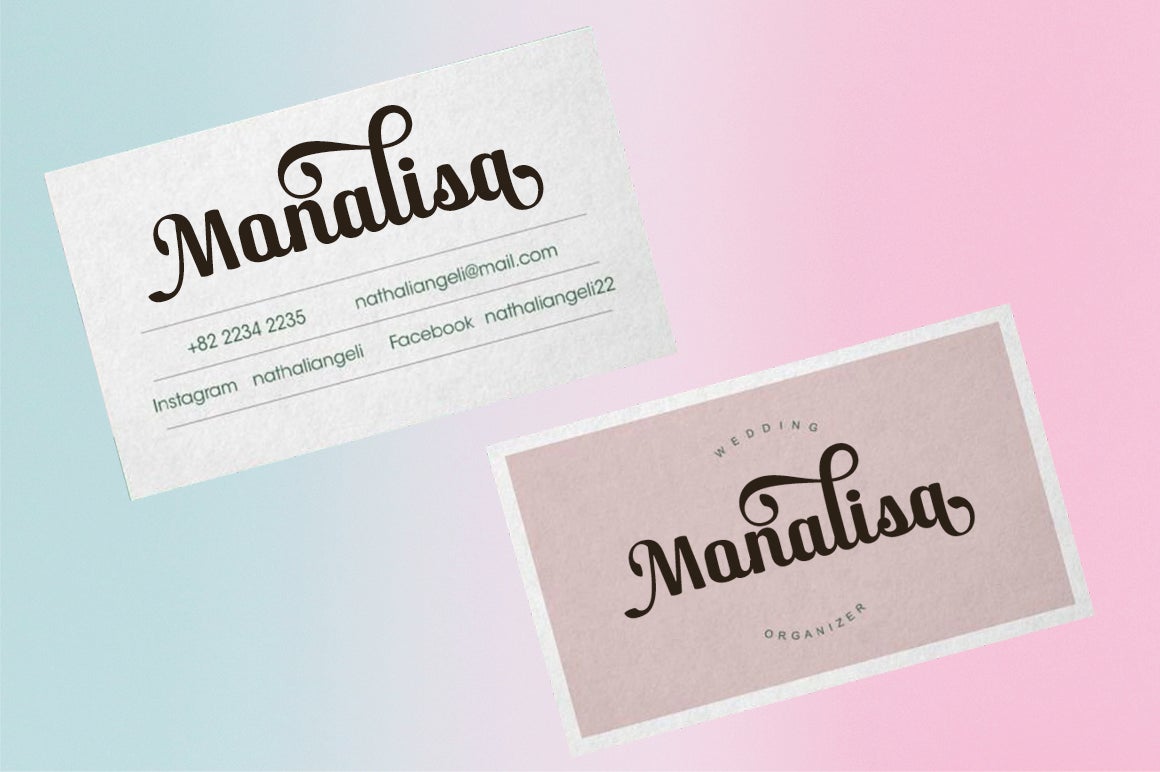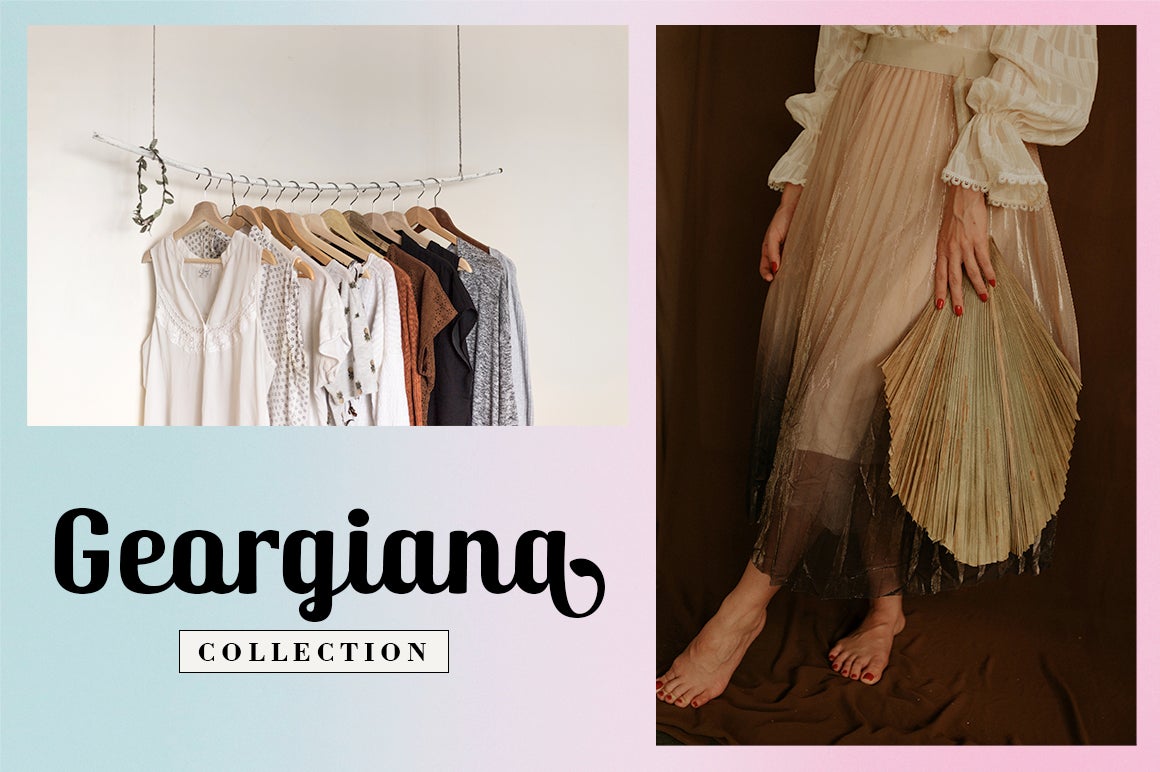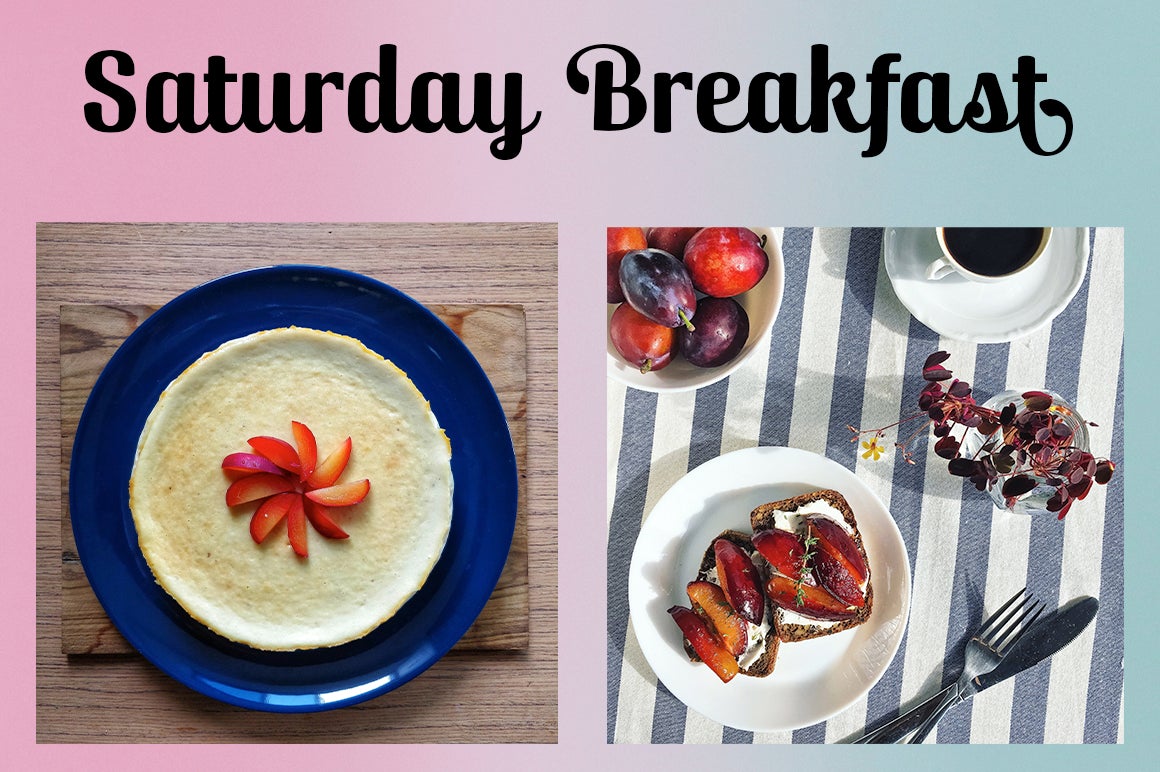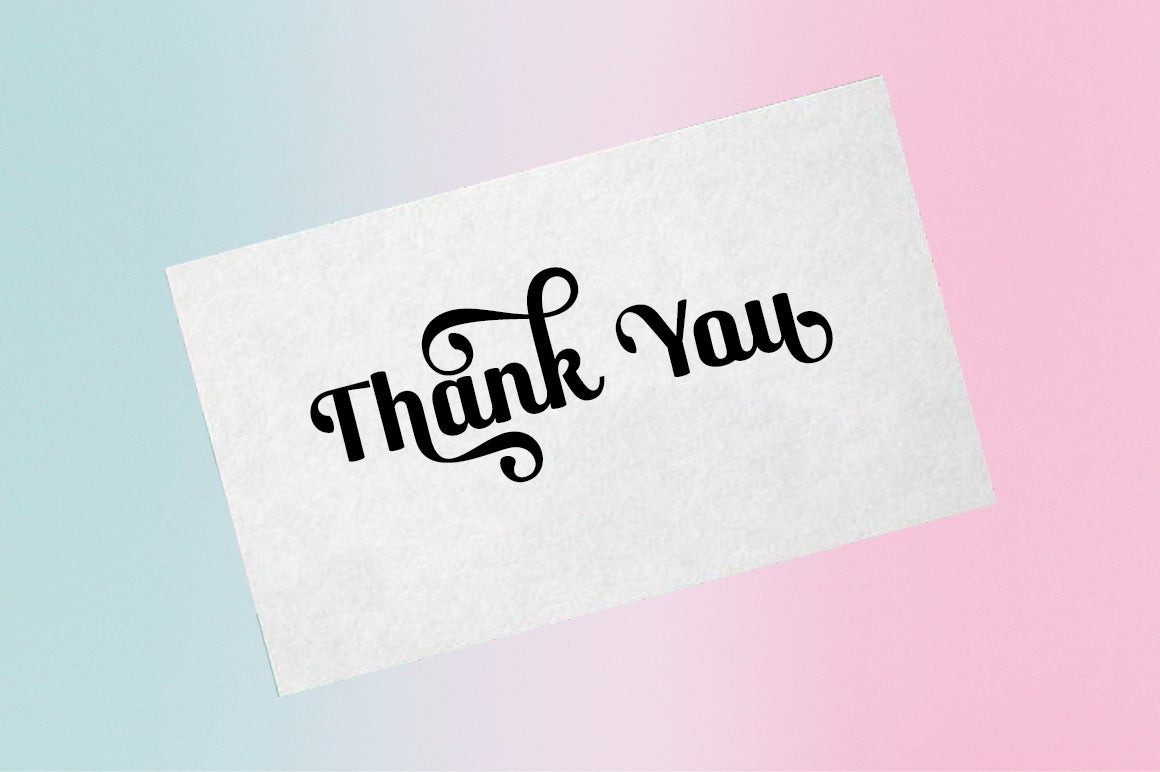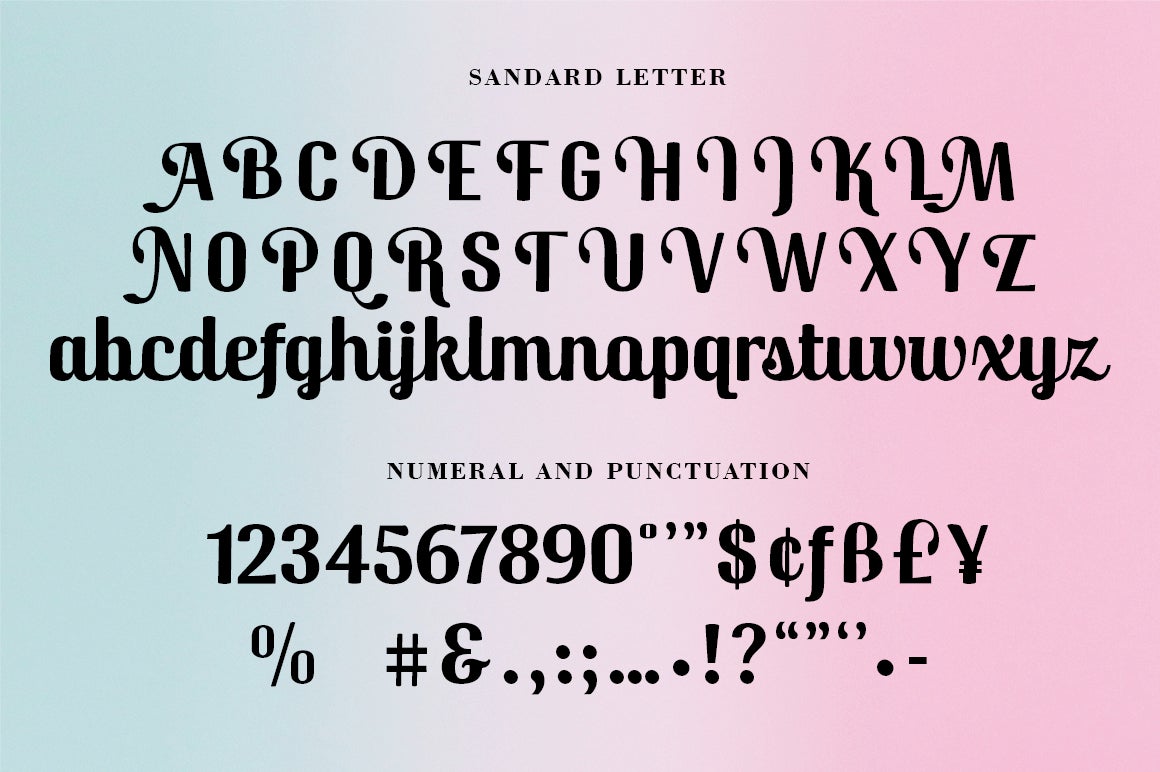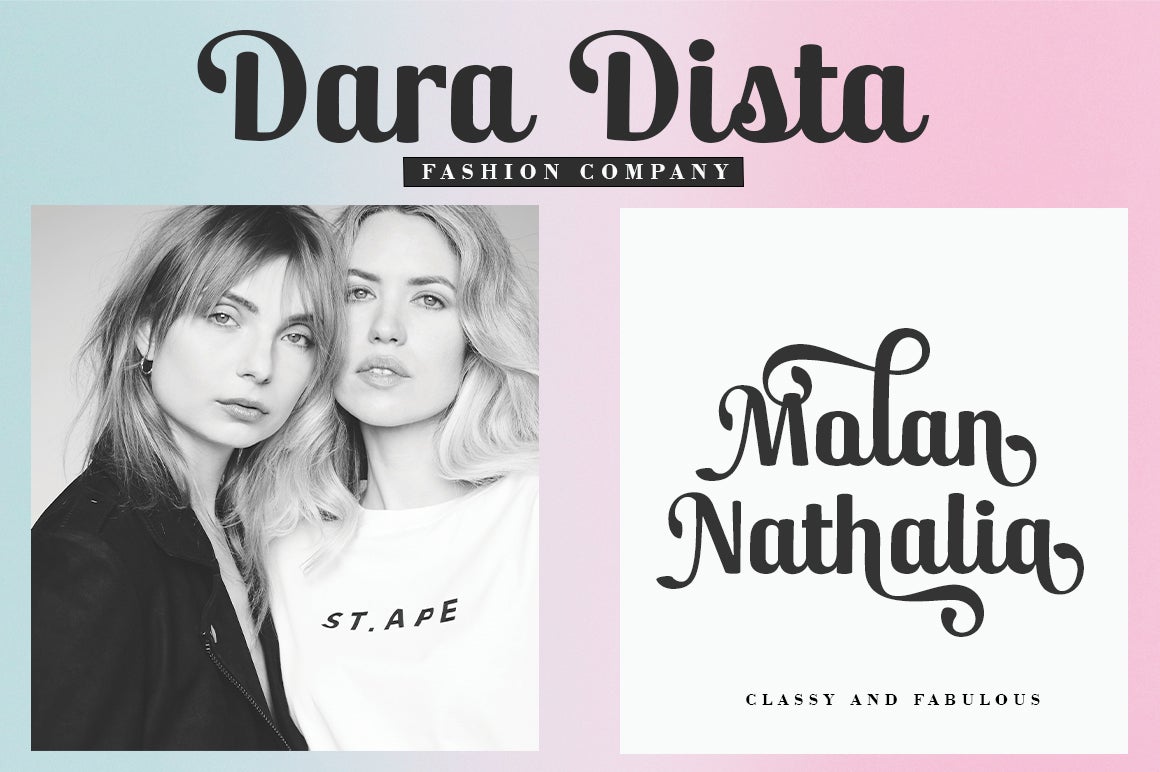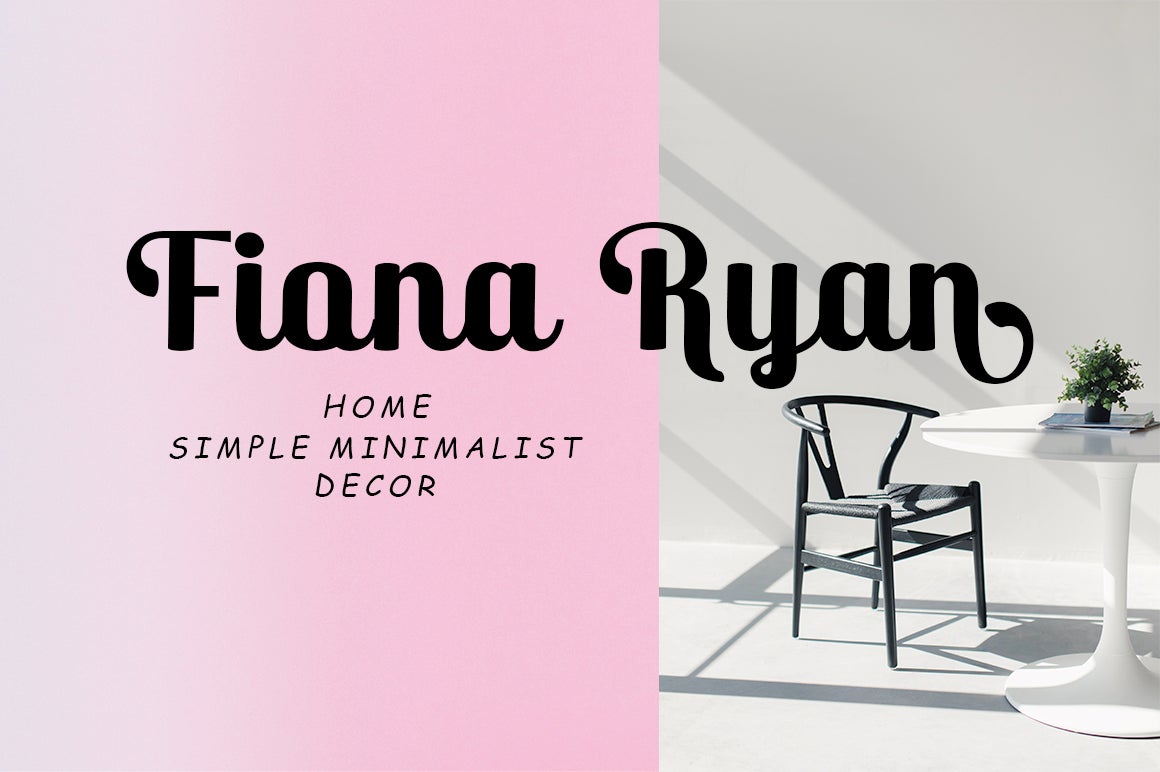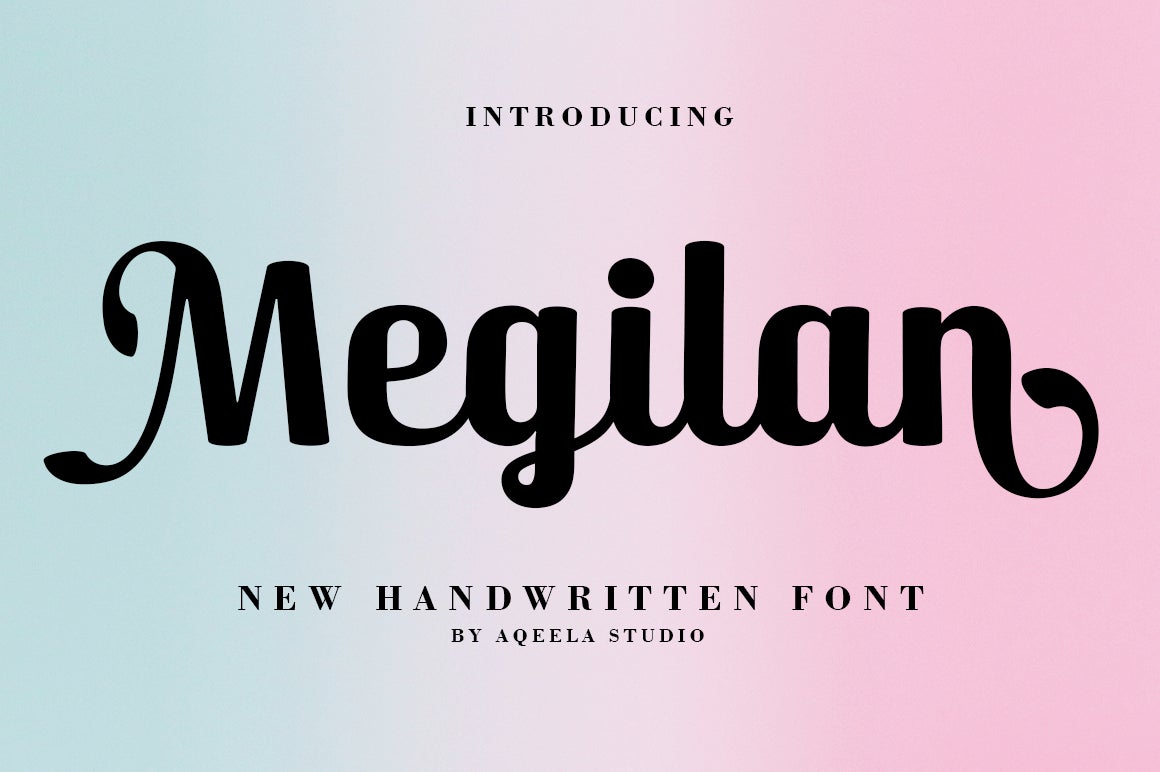
Megilan
About Megilan
Megilan is a bold, elegant and flowing handwritten font. It has well balanced characters and as a result, it fits into a variety of designs. This font is PUA encoded which means you can access all of the glyphs and swashes with ease!